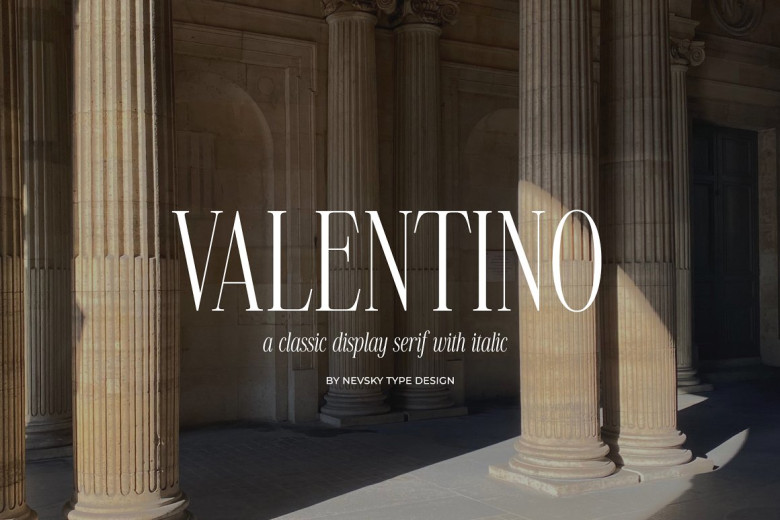
NT Valentino Font
NT Valentino is a graceful and reliable serif font, good for any case. Beautiful and at the same time useful. Created for use in full text. What is more, NT Valentino is a reliable display typeface. This elegant font ought to be in your collection. Wonderful for your luxury design projects.
The font is provided in regular & italic scripts, helping more than 200 Latin-based languages.
NT Valentino Serif Font